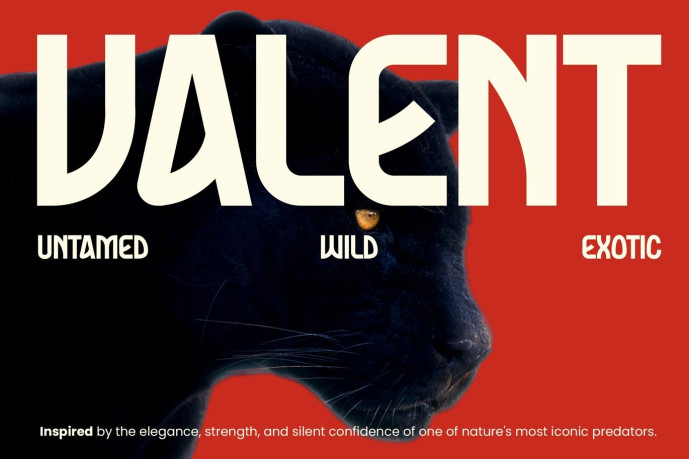
Valent – Wild Bold Display Font
Valent is a wild bold display font crafted for adventurous branding, striking headlines, and fearless visual storytelling. Built with strong geometric forms, rugged edges, rounded corners, and bold proportions, it blends raw natural energy with modern structure. The distinctive letterforms create an expressive look that captures attention while remaining clear and highly readable for impactful display typography.
Inspired by the untamed spirit of nature, Valent is ideal for outdoor brands, adventure campaigns, product packaging, editorial layouts, posters, social media graphics, logo design, beverage labels, event promotions, website headers, and creative marketing materials. With Multilingual Support covering 67 languages, it helps designers communicate confidently with audiences around the world.
Bring bold outdoor energy to your creative projects with Valent. Whether you’re designing branding, posters, editorial layouts, packaging, social media content, or digital campaigns, this wild display font delivers memorable headlines that stand out while offering multilingual flexibility for global audiences.
Key Features :
Wild Bold Style Strong letterforms inspired by nature and adventurous design.
Perfect for Display Ideal for logos, posters, branding, packaging, and editorial headlines.
Multilingual Support Supports 67 languages for international creative projects.
Distinctive Letterforms Geometric shapes with rugged details create a unique visual identity.
Print & Digital Ready Suitable for websites, social media, advertising, product labels, and promotional graphics.